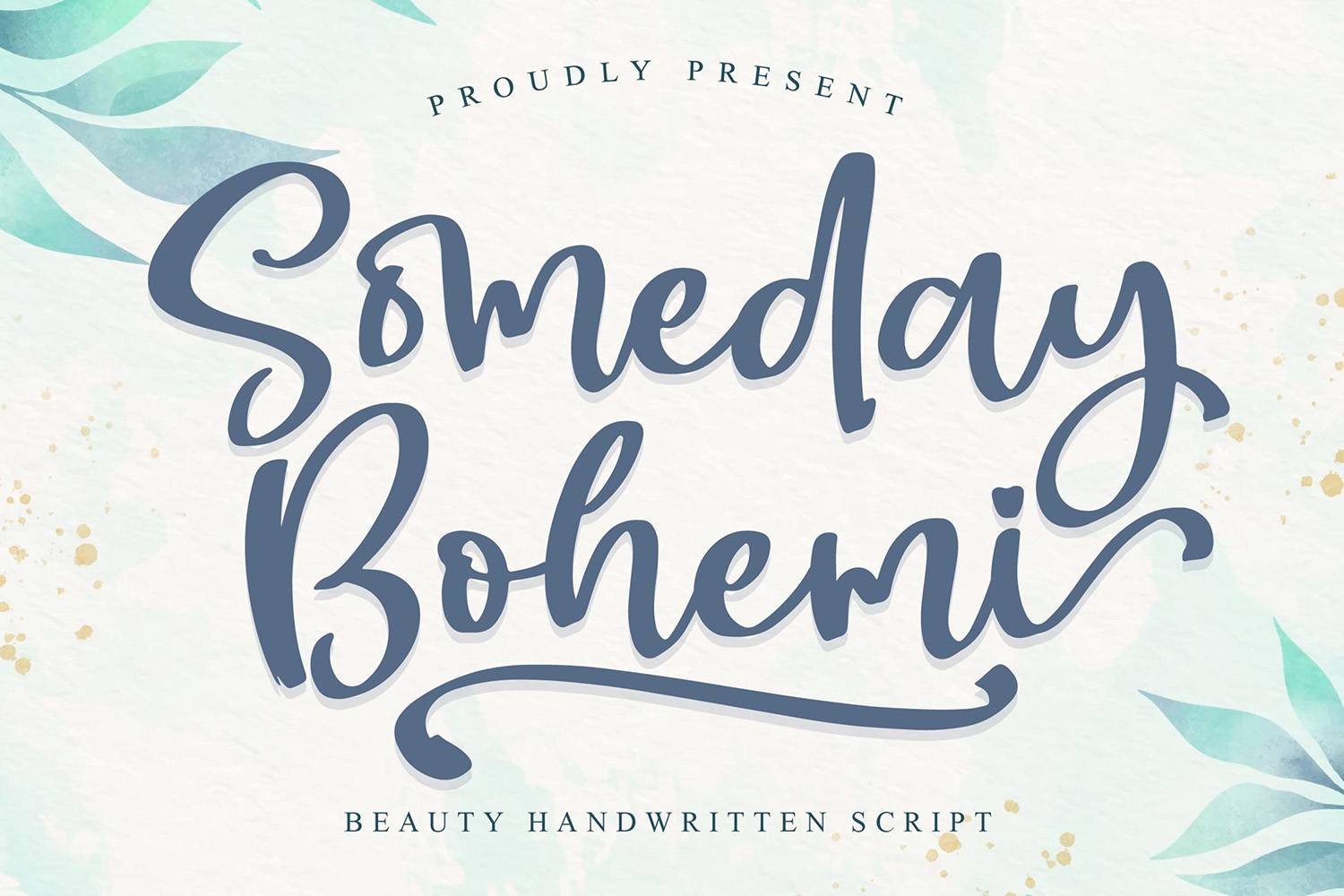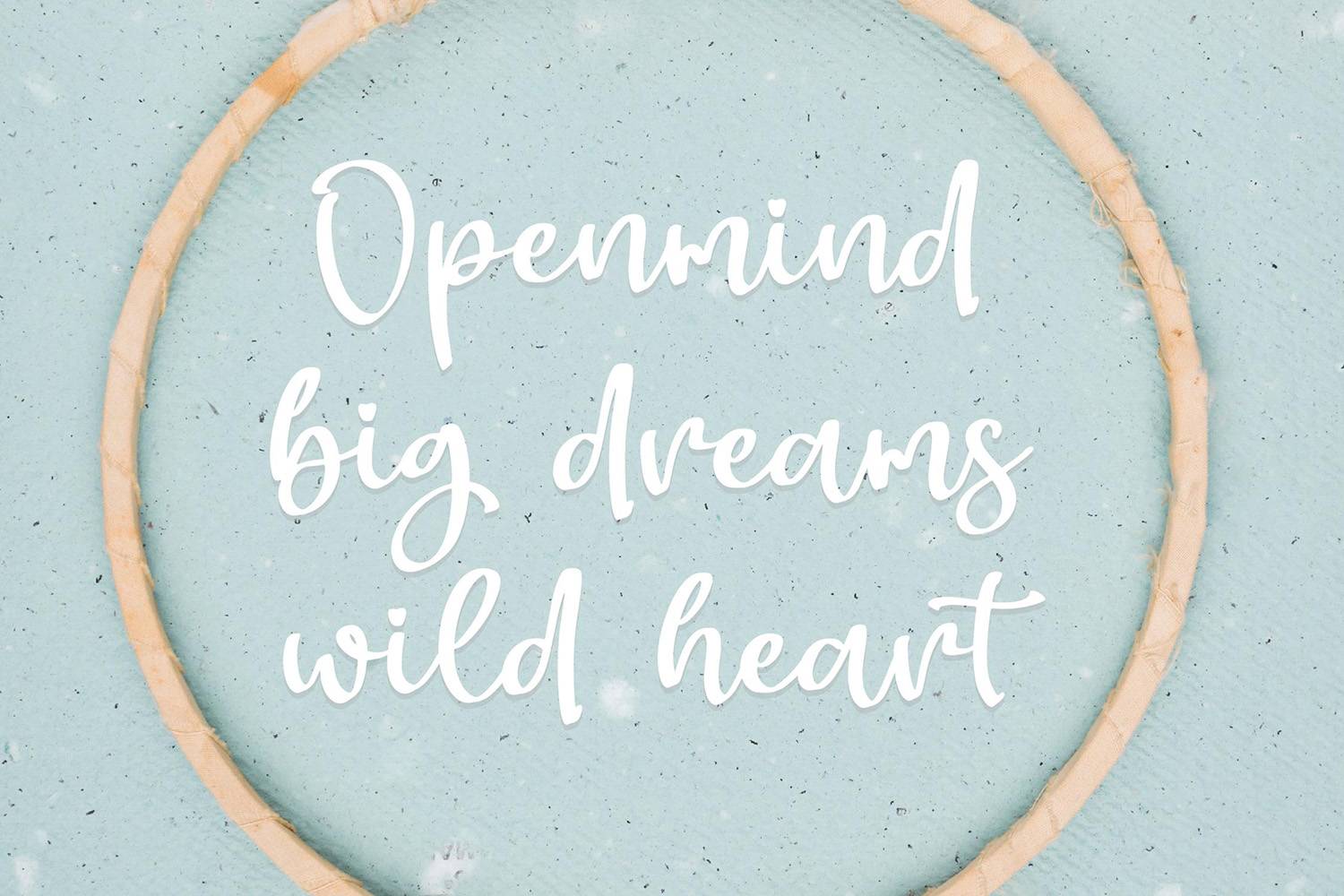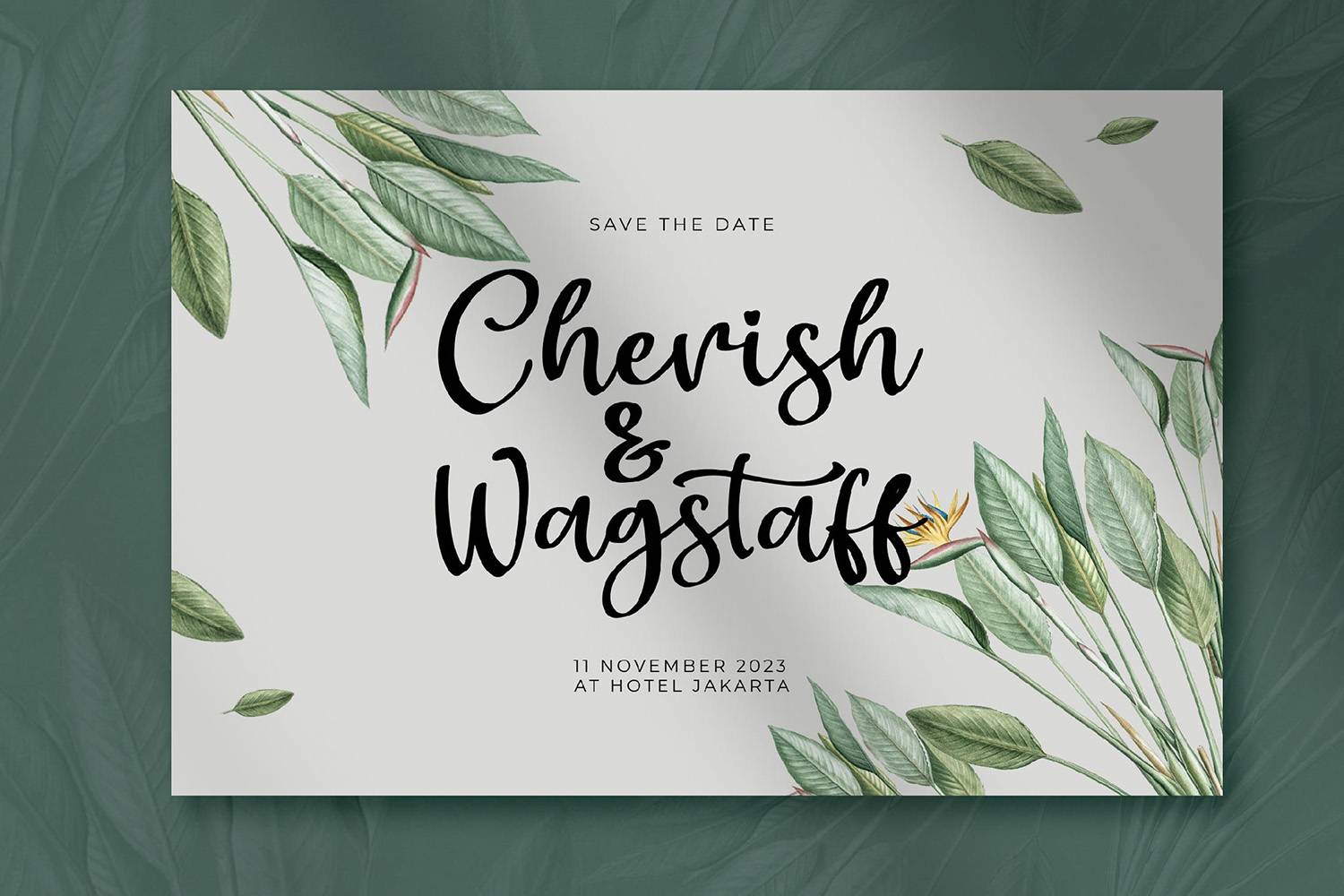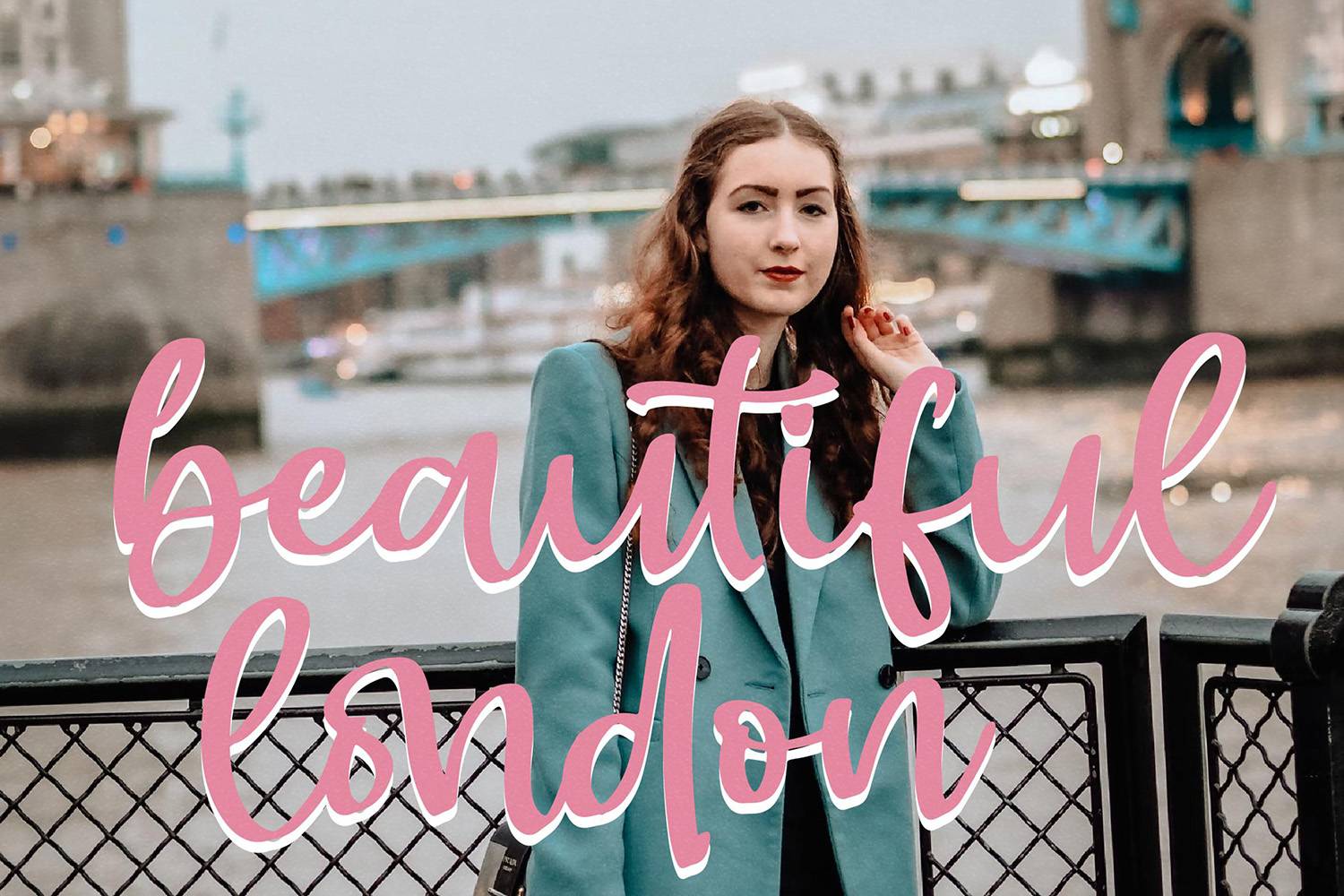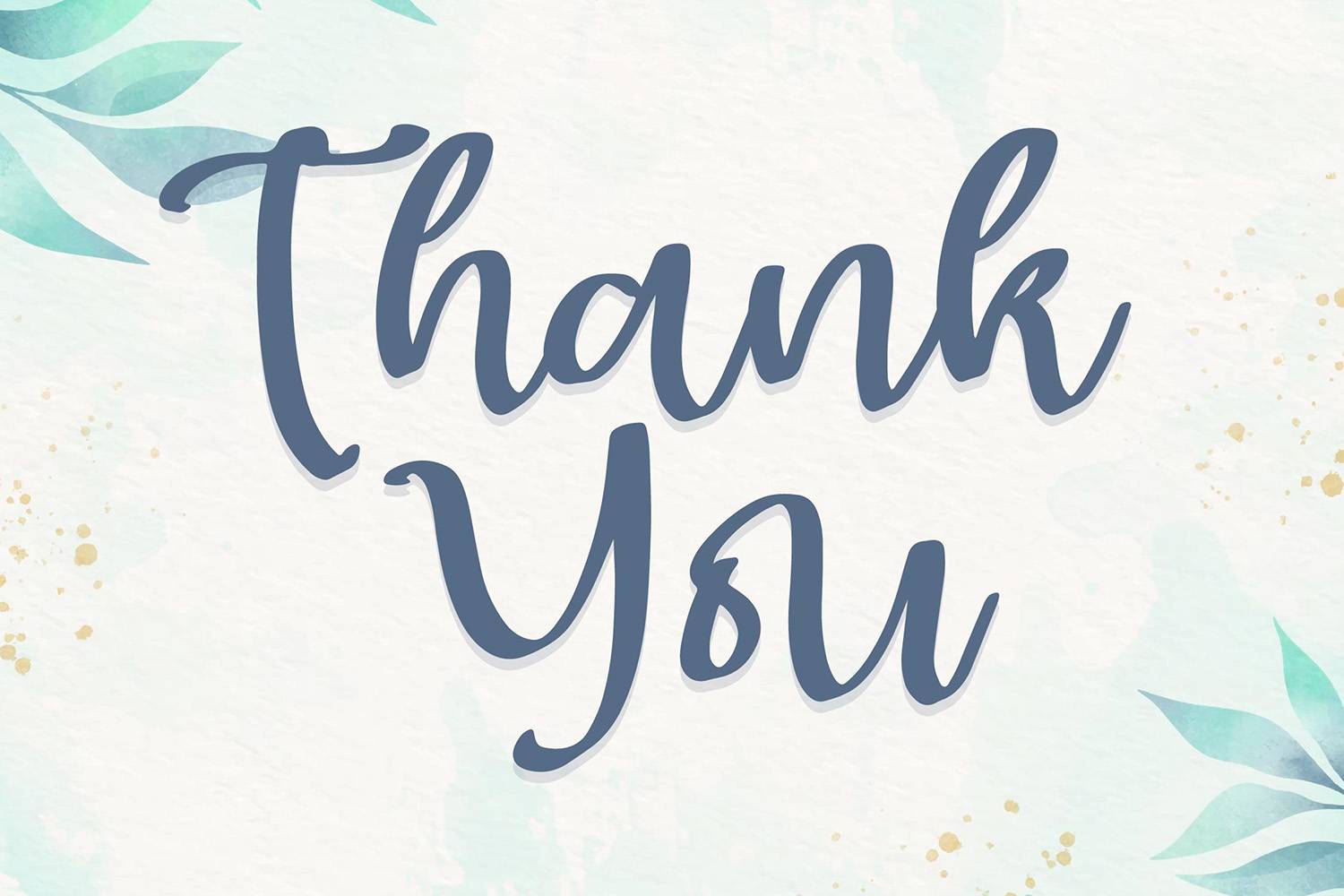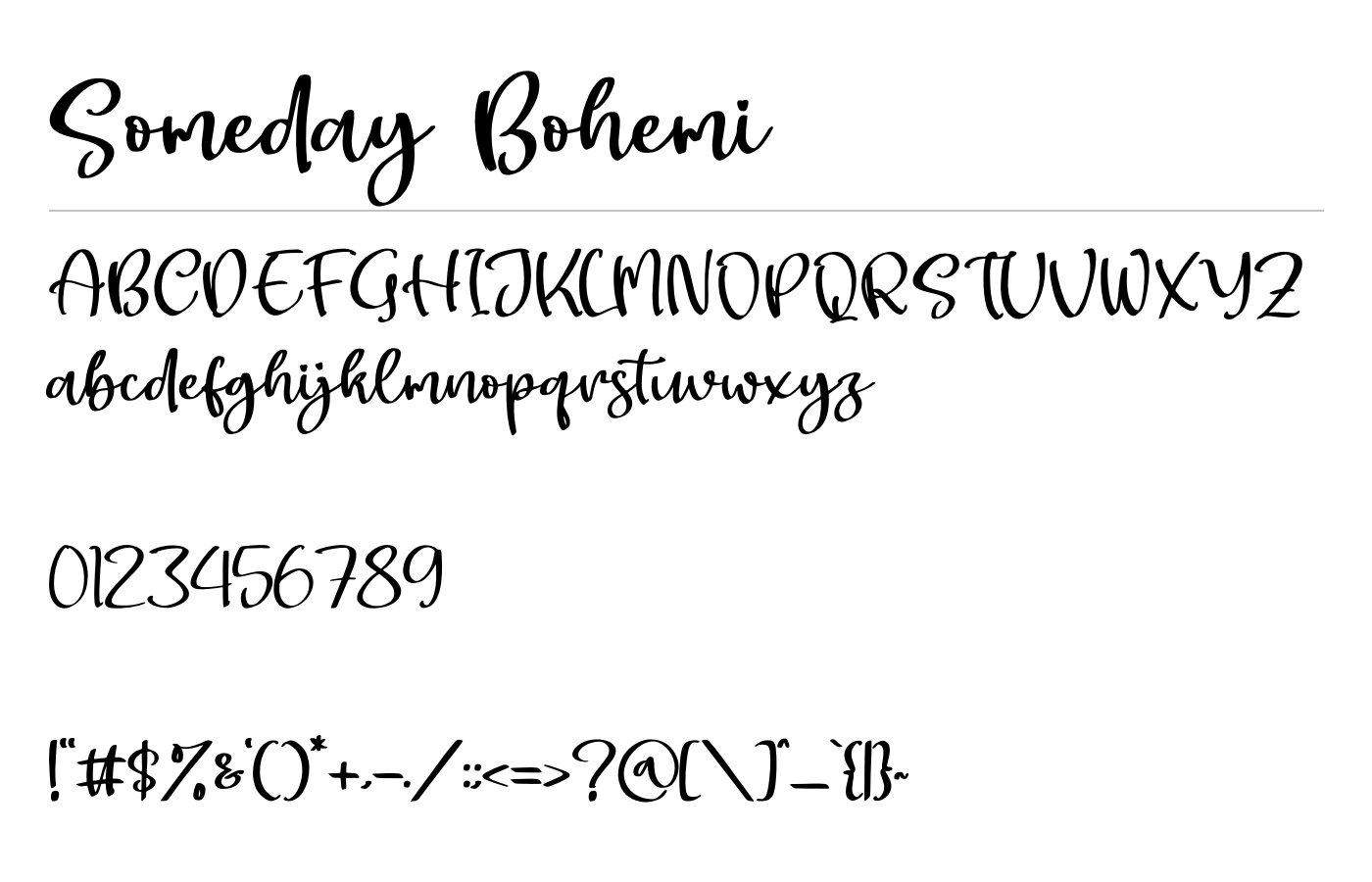
Someday Bohemi is a lively and elegant script font with a handwritten feel, featuring smooth, flowing strokes and moderate contrast that gives it a warm, personal touch. Its slightly condensed letterforms and balanced x-height make it highly readable while maintaining a playful, artistic vibe perfect for creative branding, invitations, and stylish headlines. This font’s charming personality works beautifully for projects seeking a modern yet approachable look with a bohemian flair.
Someday Bohemi Font
About Someday Bohemi Font